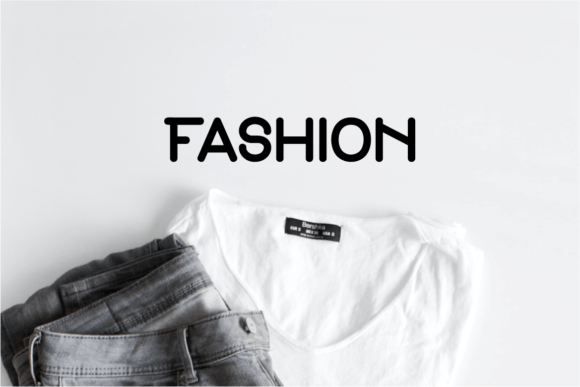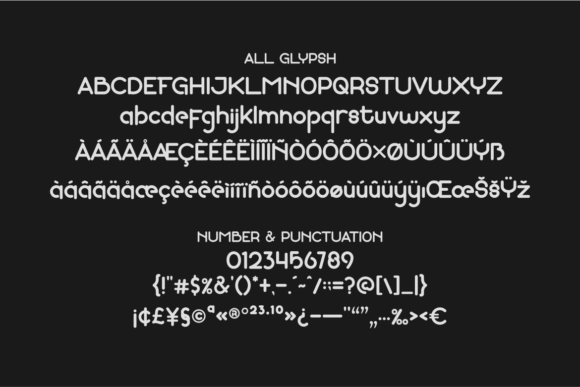
Introduction to En Jorsavelya Font
En Jorsavelya Font It has an elegant, classy look and is modern.
It’s a great font for fashion, apparel projects, signature, album covers, logo, branding, magazine, social media, & advertisements, but also works great for other projects .
Key Features of En Jorsavelya Font
Why Choose En Jorsavelya Font?
En Jorsavelya Font offers exceptional quality and versatility, making it a valuable addition to your design toolkit. Whether you’re creating for personal projects or commercial use, En Jorsavelya Font delivers professional results.